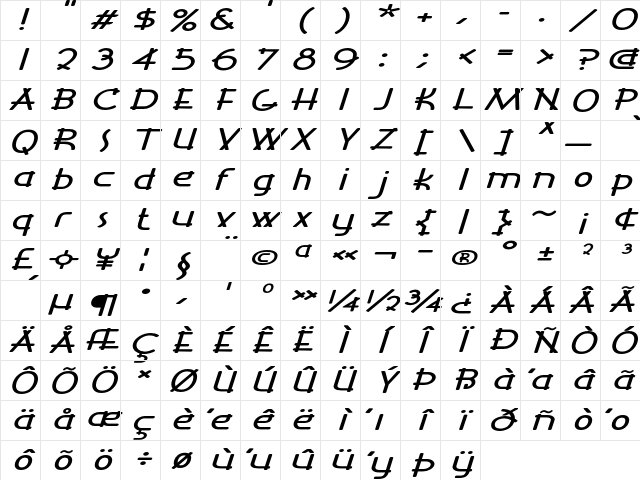
Stekkio Extra-expanded Italic Free Font
Stekkio Extra-expanded Italic
Style: Extra-expanded Italic
Complete Stekkio Extra-expanded Italic glyph index. Displaying only characters natively supported by Stekkio Extra-expanded Italic font.
Design Context for Stekkio
Stekkio is a composed and adaptable typeface that performs quietly and consistently across a wide range of design contexts. The slanted form adds forward momentum and visual energy.
Pro Tip: Use Stekkio for emphasis, pull quotes, and subheadings where its slanted energy can add rhythm to the layout.